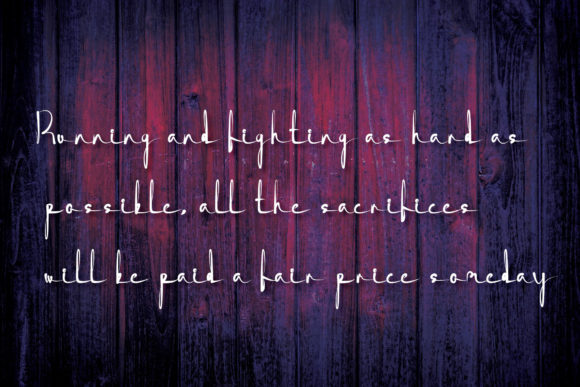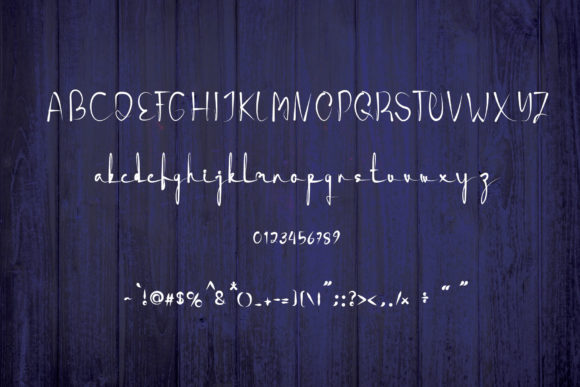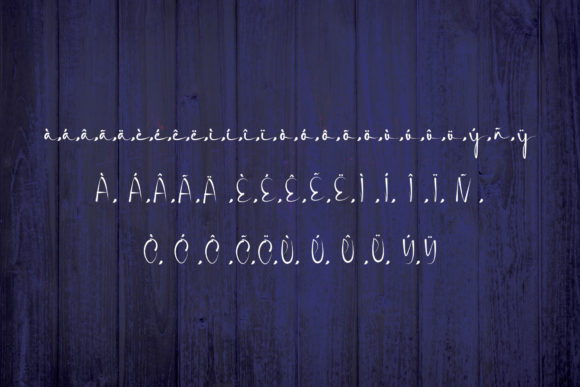
Introduction to New Design Font
New Design is a stylish and delicate handwritten font.
It has a clean, thin and smooth vibe and it will be a hit for any design that you want to add it to .
Key Features of New Design Font